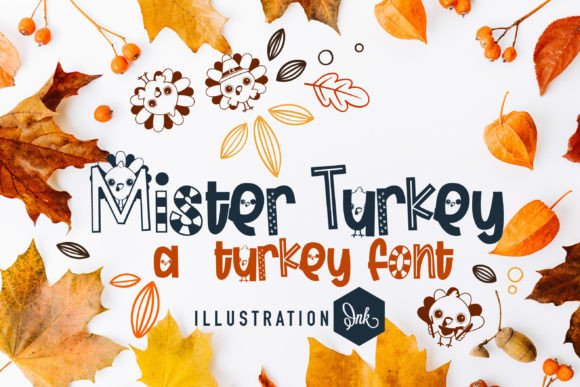
Our Mister Turkey font family is like a warm, comforting hug that instantly uplifts your designs. As part of our decorative font collection, Mister Turkey is infused with an essence of Thanksgiving, evoking feelings of gratitude, merriments, and laughter.
Illustrated Ink introduces this fun, turkey-infused decorative font, a perfect blend of whimsy and quirkiness. Designed to brighten up your designs, Mister Turkey will add an instant burst of cheer to your projects.
Like a playful dance among the leaves of autumn, Mister Turkey's characters sway with elegance, adding a touch of festivity and warmth to your graphics. This font is not just a collection of letters - it's a celebration of the harvest, a tribute to the bounty of nature.
Use Mister Turkey to create stunning invitations, greeting cards, social media posts, posters, and more. Its unique charm will capture attention, spreading joy and cheer wherever it goes. Whether it's a Thanksgiving feast or a simple gathering with loved ones, Mister Turkey will be your perfect companion, adding a touch of magic to your designs.
Envision your designs adorned with the vibrant colors of fall, the aroma of roasted turkey filling the air, and the laughter of friends and family echoing through the house. Mister Turkey is the font that brings that vision to life, creating a visual symphony that tells a story of love, warmth, and togetherness.
Immerse yourself in the spirit of Thanksgiving with Mister Turkey, the font that captures the essence of the season. Add it to your collection today and let your designs shine with the beauty of gratitude.